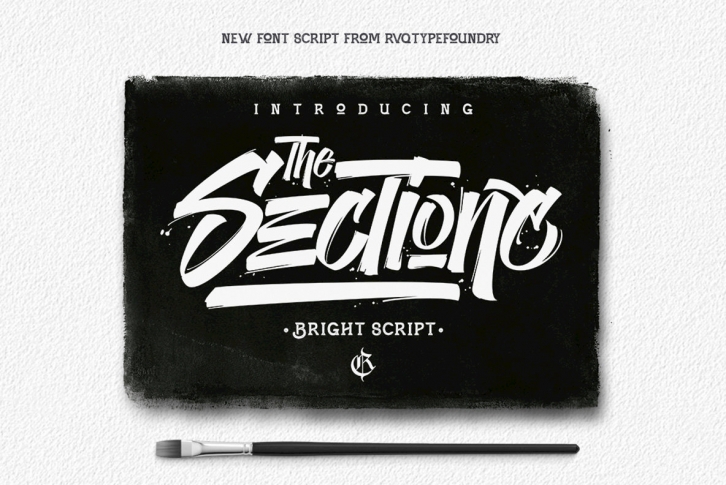
The Sectione Bright is script designed by Rvq Typefoundry. It contains an elegant feel and contains multiple OpenType features. The Sectione Bright script includes a full set of capital and lowercase letters, as well as multi-lingual support, currency figures, numerals, punctuation & some extra glyphs.